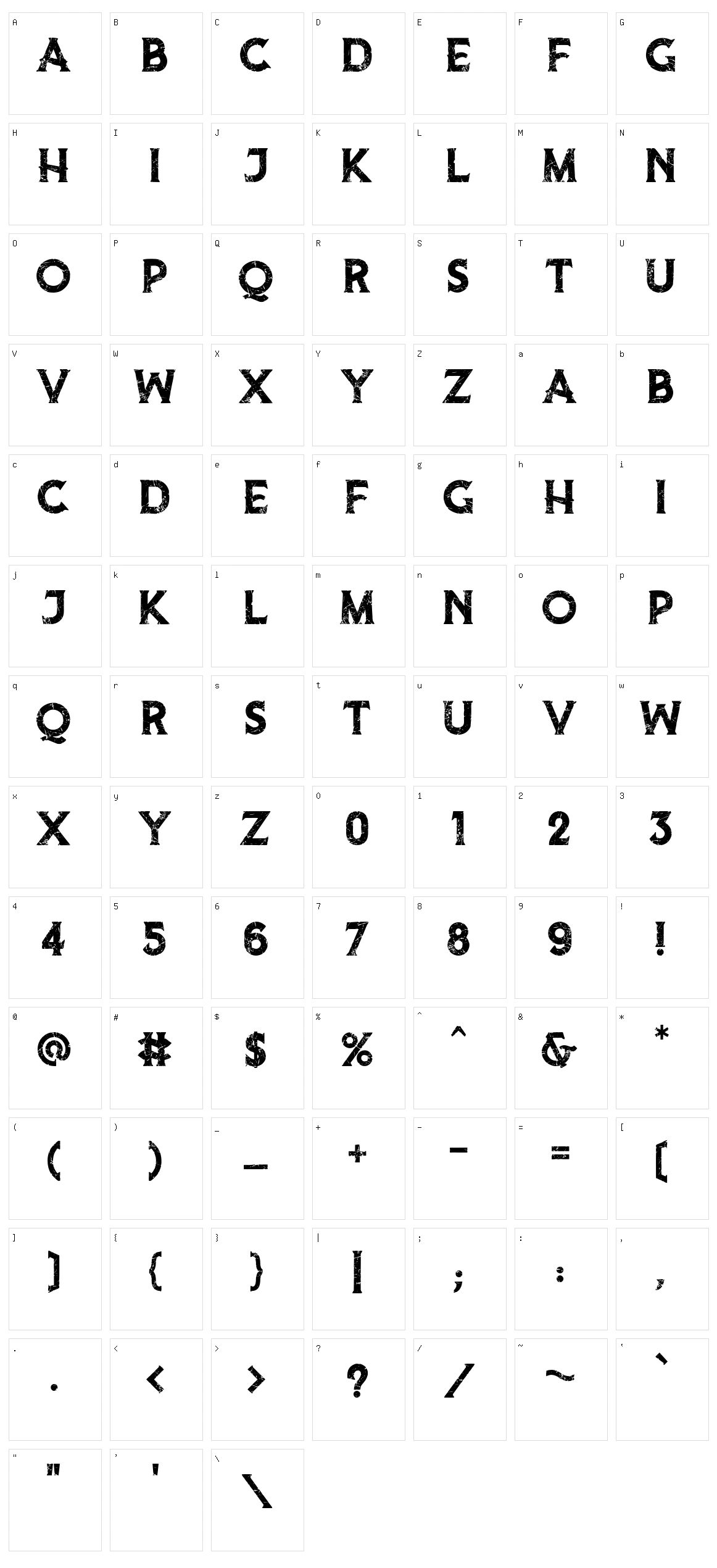
The free font Vanrott Destroy is carefully designed by Riyadh Rahman, showcasing a thoughtful balance of creativity and usability and falls under the Eroded font style. When you download the ZIP file, it contains only 310.35 KB of font files, making it lightweight and quick to download. Please review the license details below to understand permitted usage and distribution rights. If license information is not available, we recommend using this font for personal projects only or contacting the author directly for commercial usage permissions.